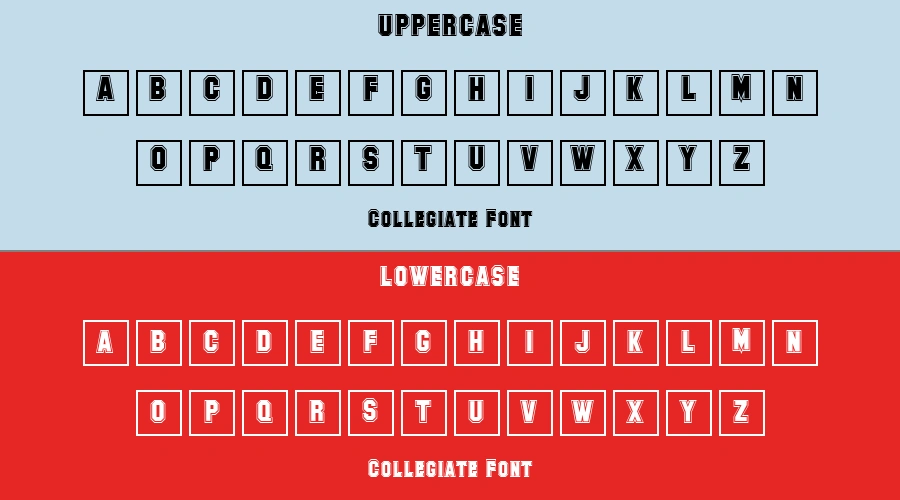
About Collegiate Font
Designed with precision, Collegiate Font merges refined proportions with distinctiveness in every character. This versatility makes it particularly effective for mobile applications, where precision and cultural relevance directly impact communication quality. Each letterform demonstrates meticulous craftsmanship.
Technical excellence shines through elements like ball terminals and lining figures, enhancing typographic versatility. In pull quotes settings, Collegiate Font proves its worth through superior language switching. The thoughtful execution of ascender height and market positioning ensures professional results.